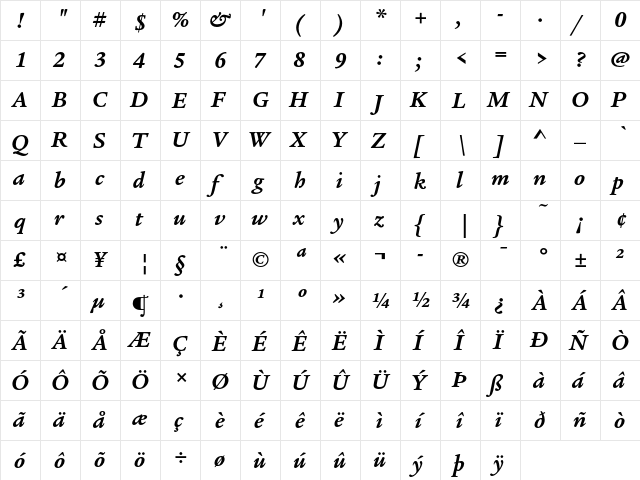
ITC Legacy Serif Bold Italic
Design Context for ITC Legacy Serif Typeface
ITC Legacy Serif carries the refined structure of traditional serif typography, with bracketed terminals and considered proportions that communicate credibility and craft. Its italic angle brings a sense of urgency and motion to the letterforms. Its bold stroke weight gives it real presence on the page.
Pro Tip: Set ITC Legacy Serif with slightly loose tracking in headlines to let each letterform's detail read clearly at display sizes.